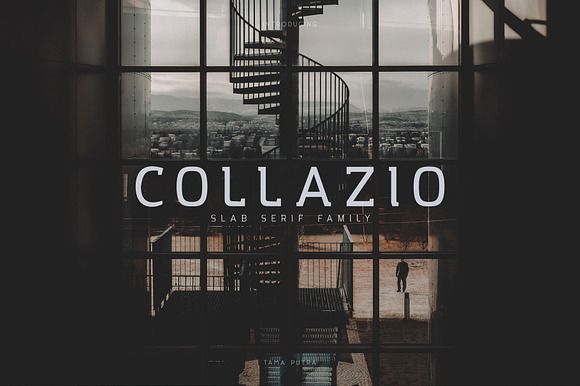
Collazio Font
Collazio Family Typeface
Collazio is a serif family typeface. It includes multi-lingual and currency support, numerals, and punctuation.
Character Set A-Z (Uppercase & Lowercase)
Accents (Multilingual characters)
This typeface can be put to many uses:
Collazio typeface is suitable font for creating beautiful things and many creative work.
- Character Set A-Z (Uppercase & Lowercase)
- Numerals & Punctuation
- This typeface can be put to many uses:
- Poster
- Banner Design
- Collazio Thin
- Collazio Light
- Collazio Regular
- Collazio Bold
- Collazio Heavy
Why Collazio Font is worth a look
Collazio Font by Vacatype Co. fits naturally into Branding, posters, packaging, typography.